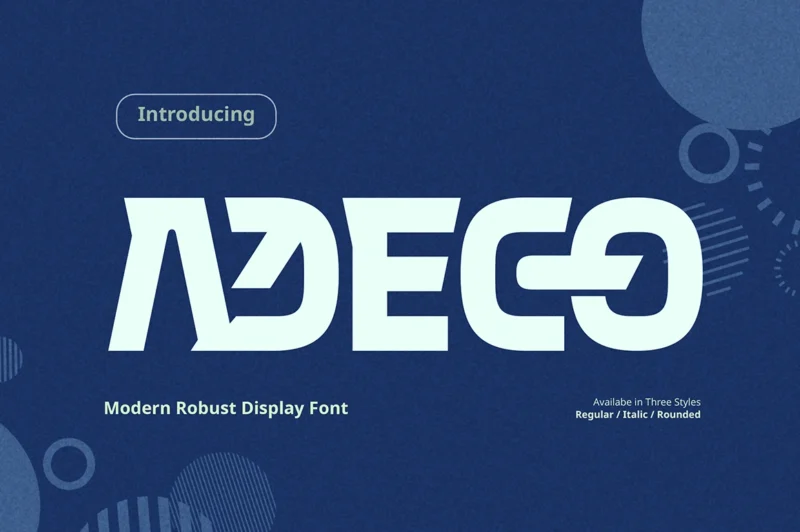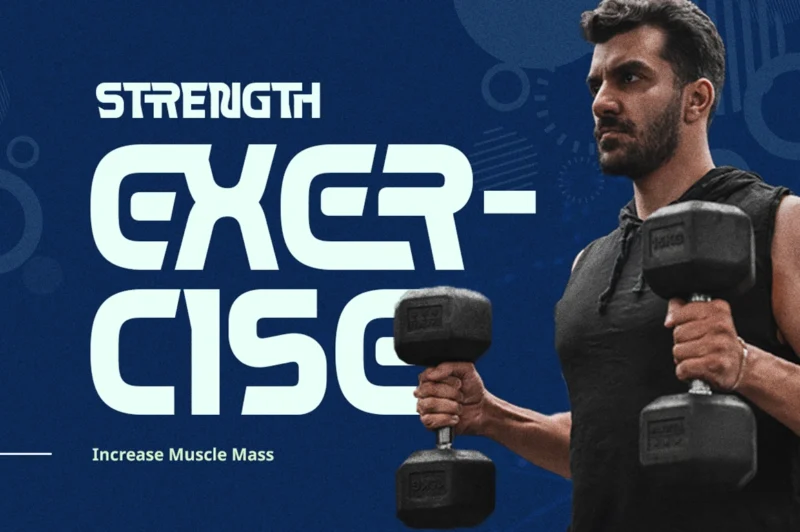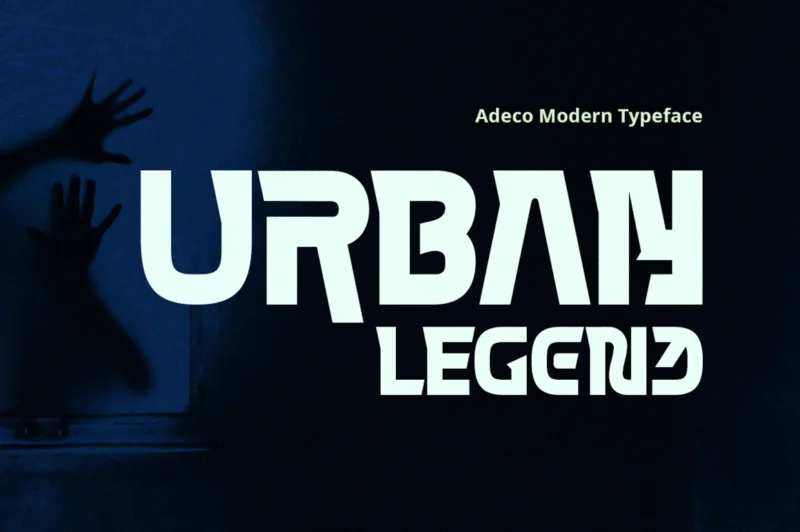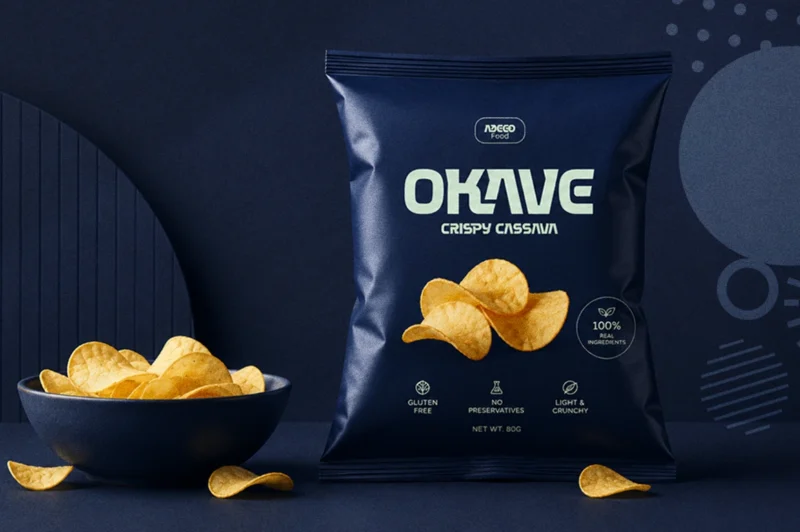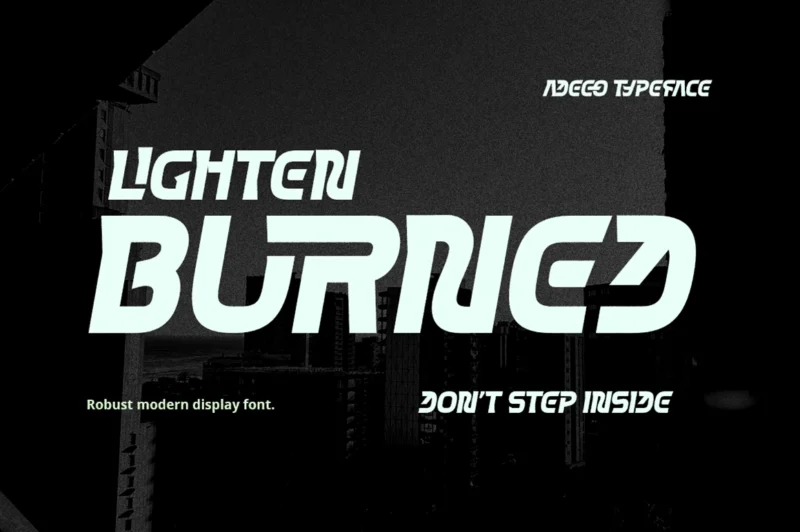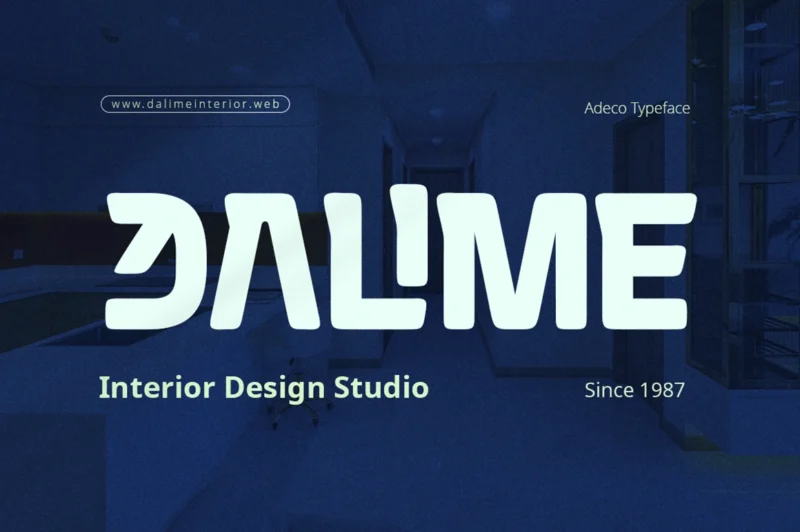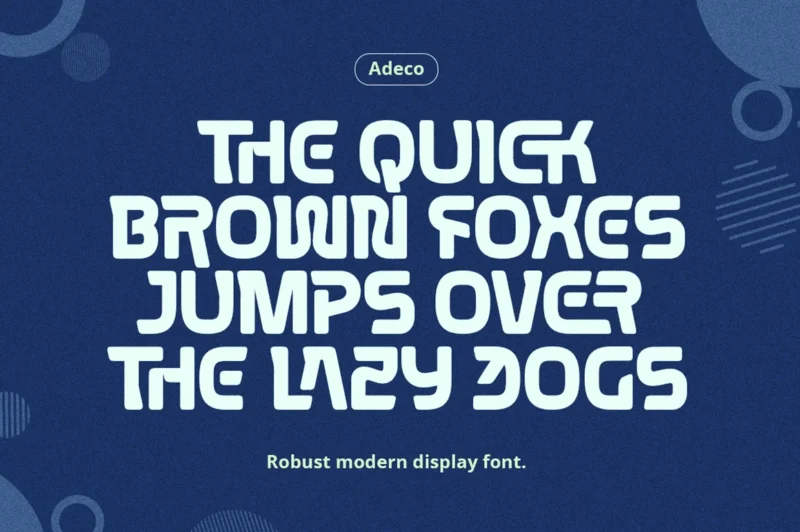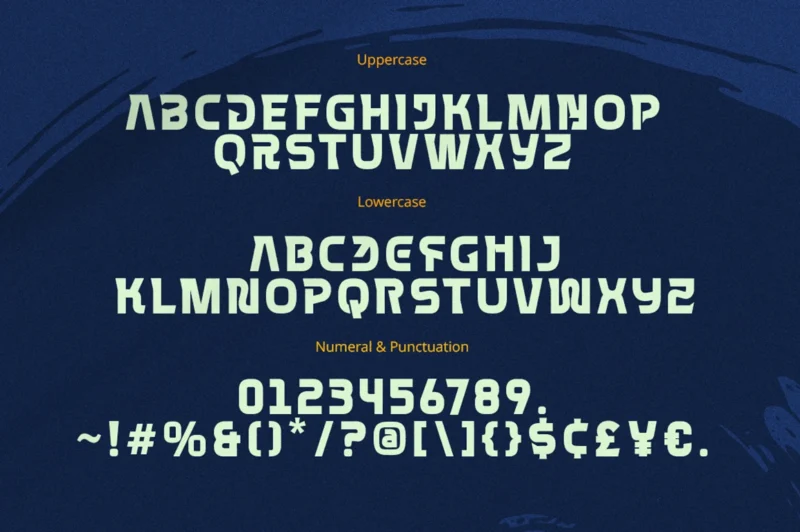
Adeco is a modern Robust display bold font with a stylish and distinctive character. Designed to make a strong visual impact, it’s perfect for logotypes, logo taglines, bold headlines, branding, posters, packaging, and any design that demands attention. Complete with carefully crafted ligatures, Adeco brings a unique and polished look to every project while maintaining excellent readability and personality.
- Bold Display Font
- All Caps Font
- Basic Latin Glyphs
- Modern and Robust
- Unique Ligatures
- Numeral and Punctuation
- Currencies
- Multilingual Support